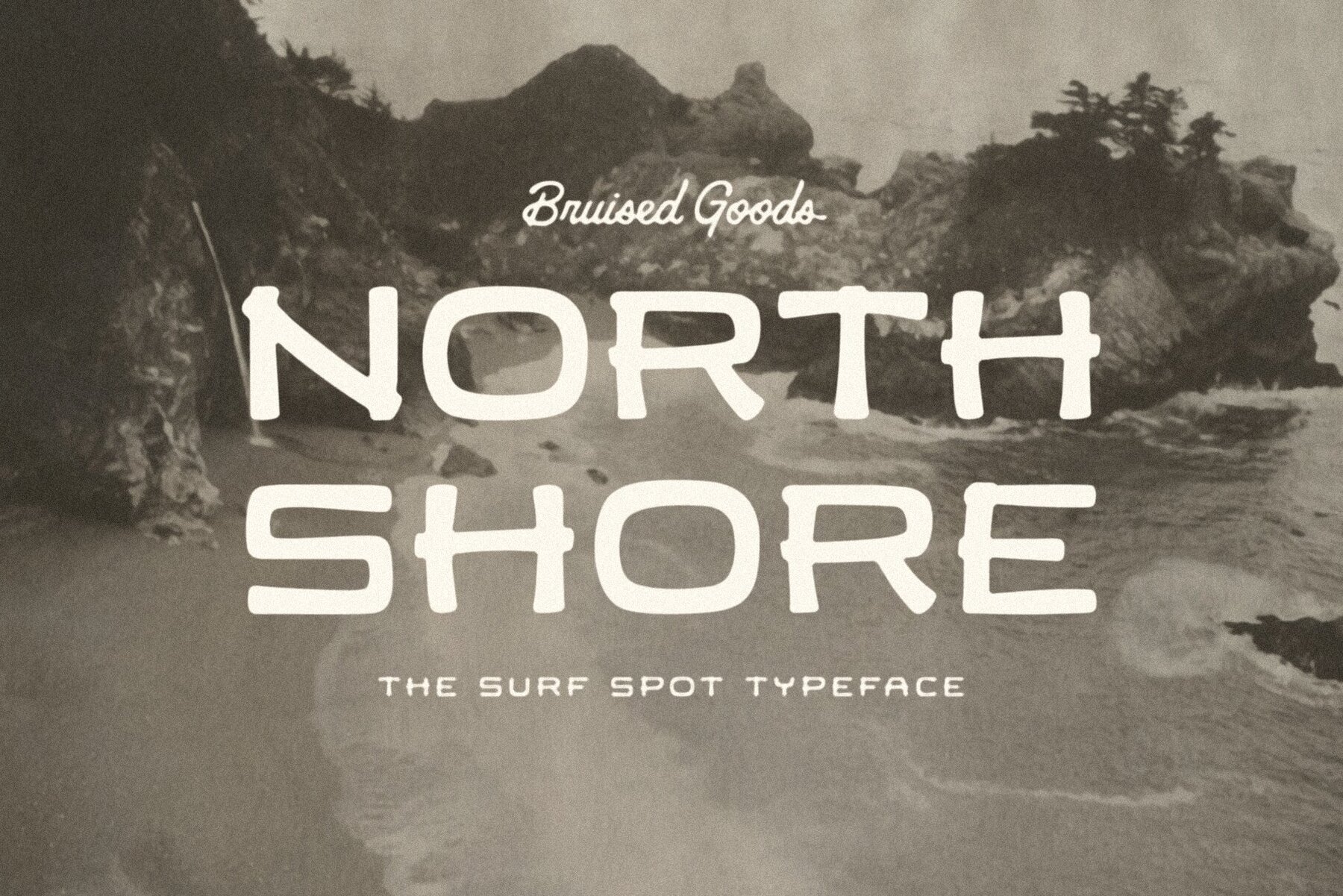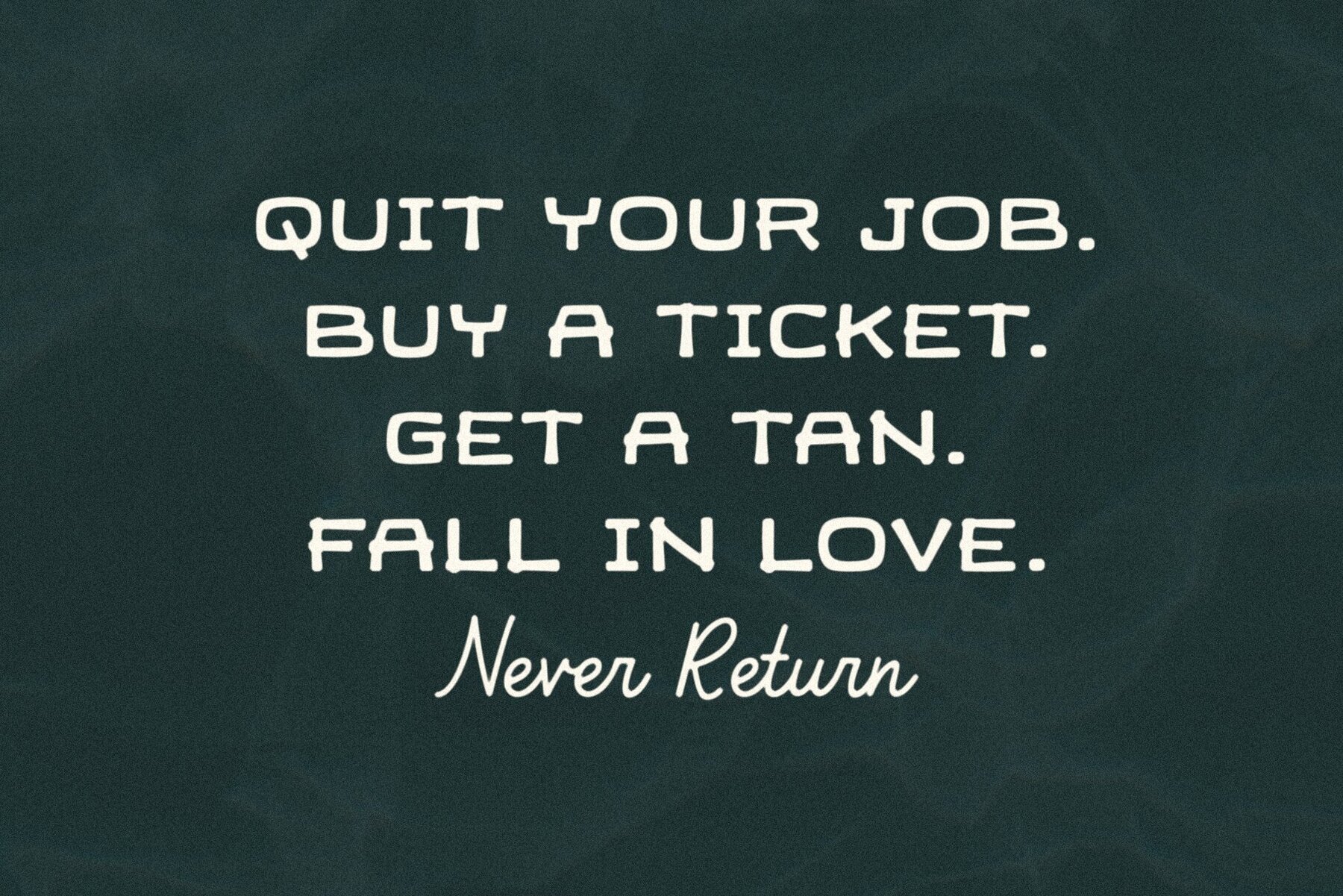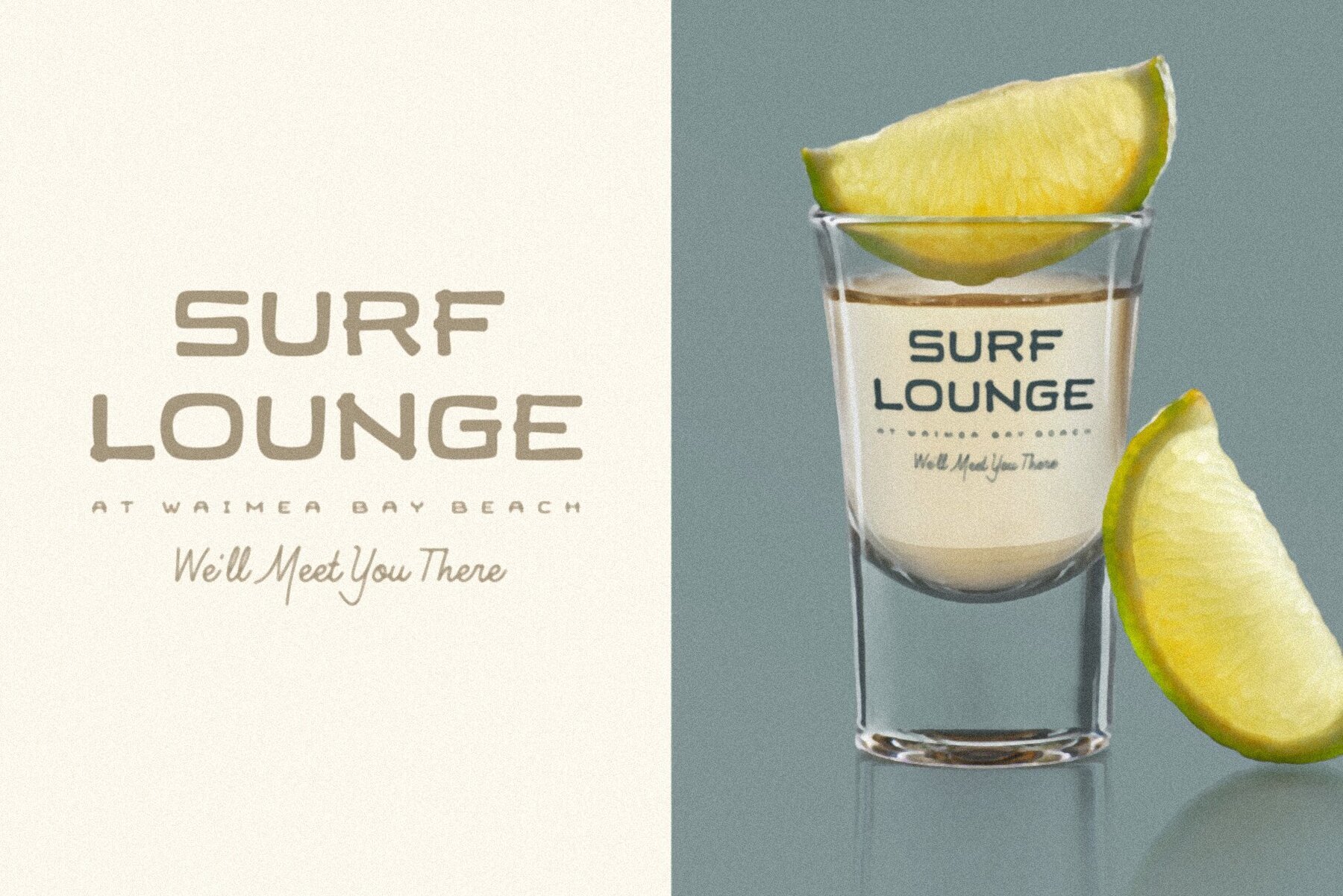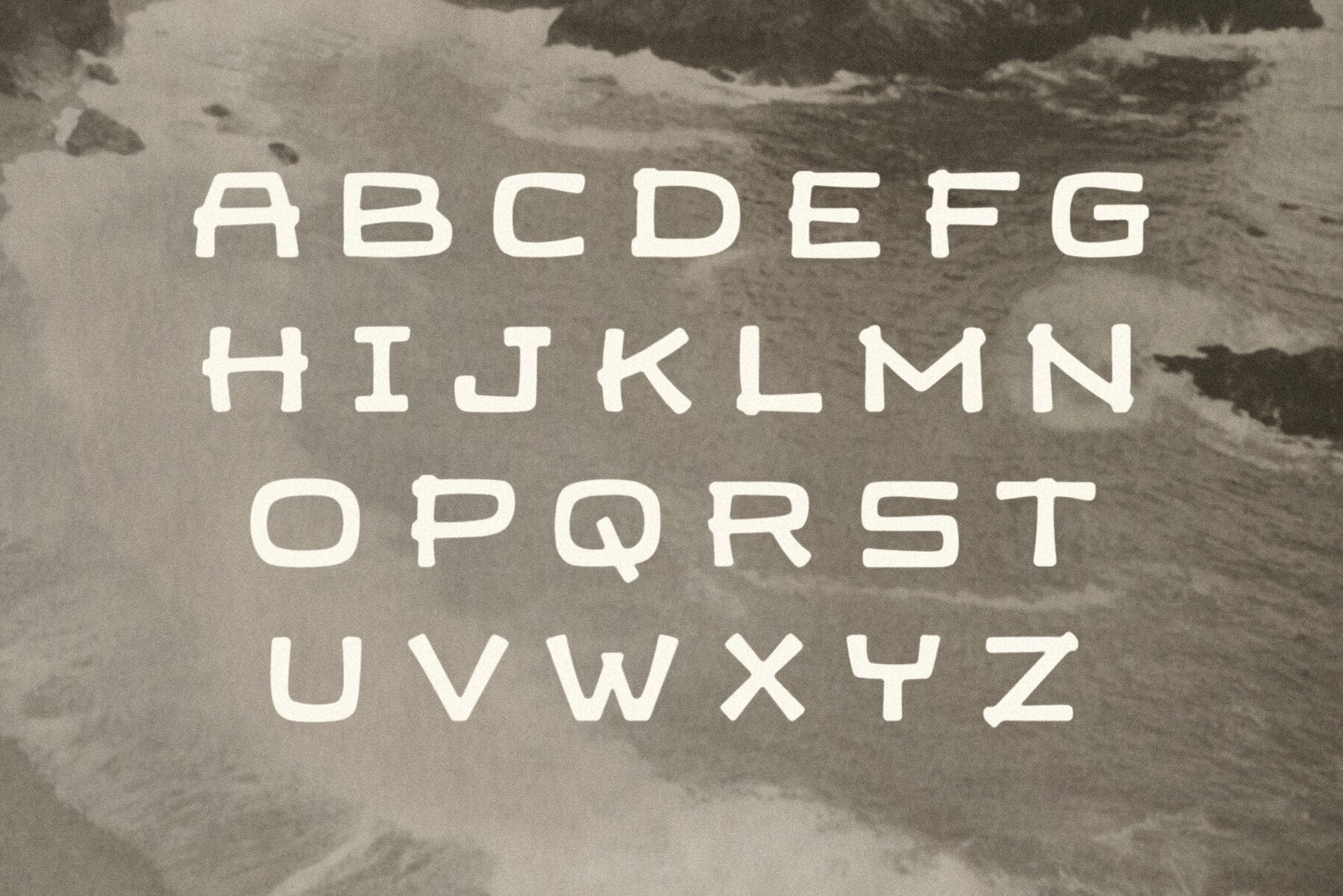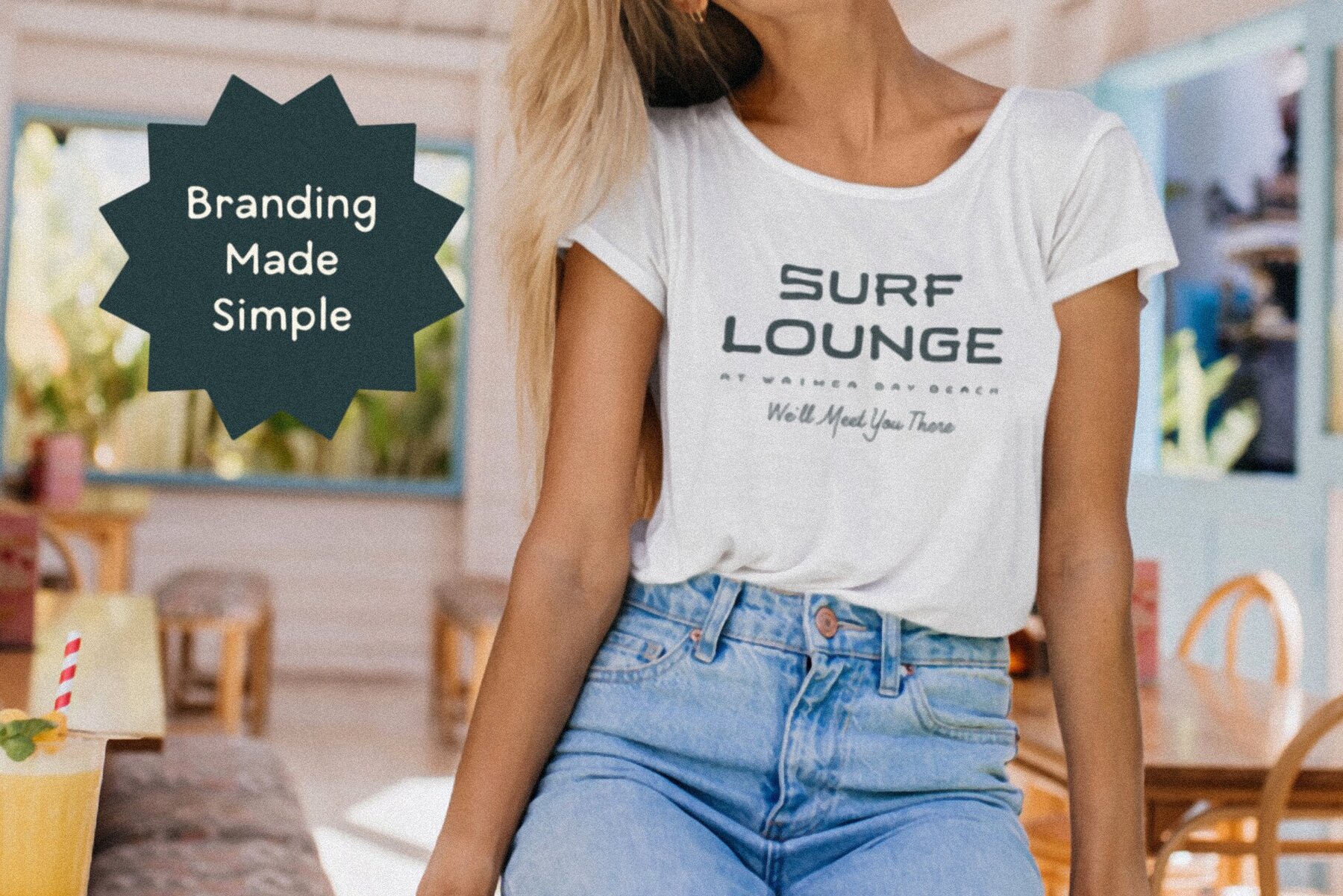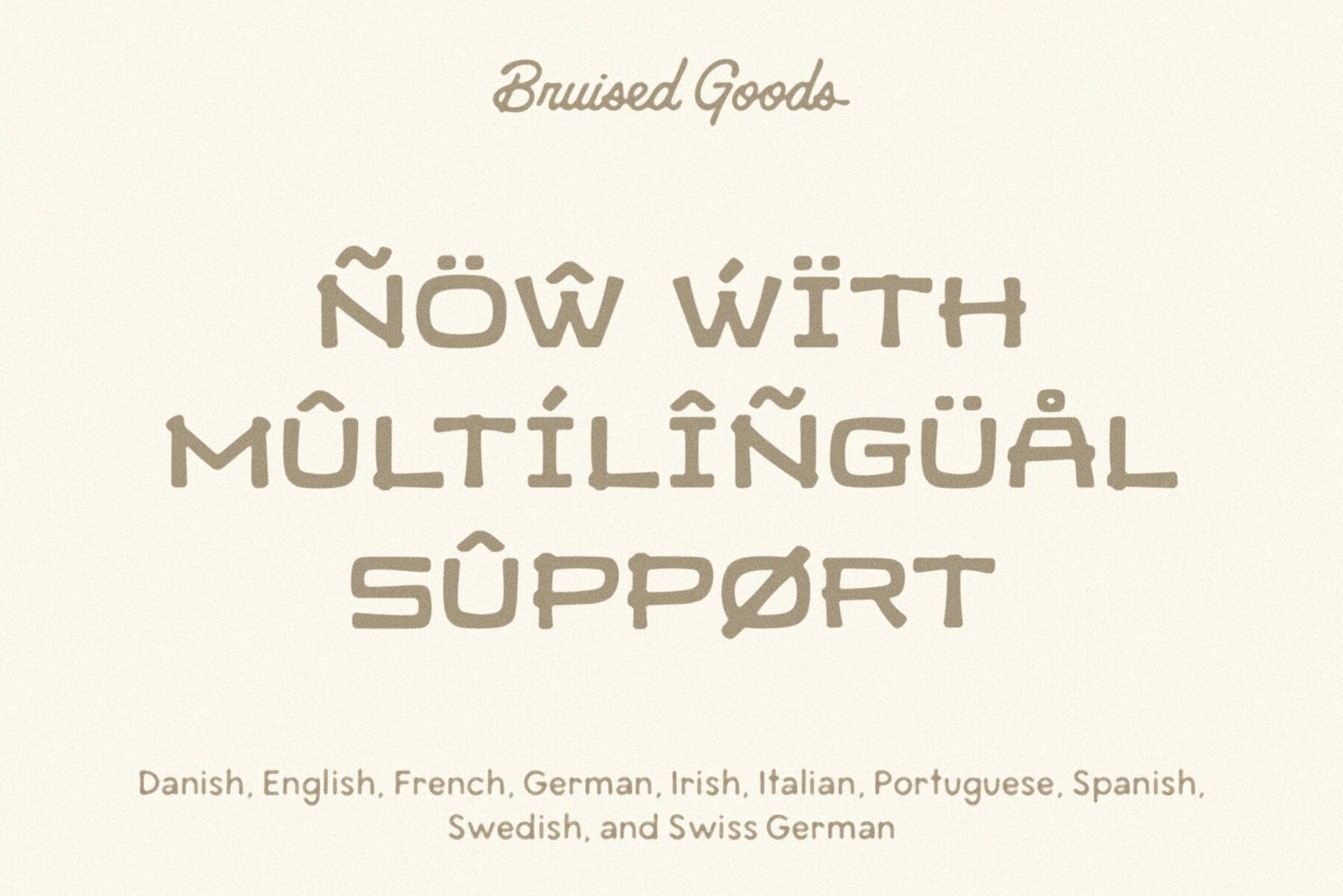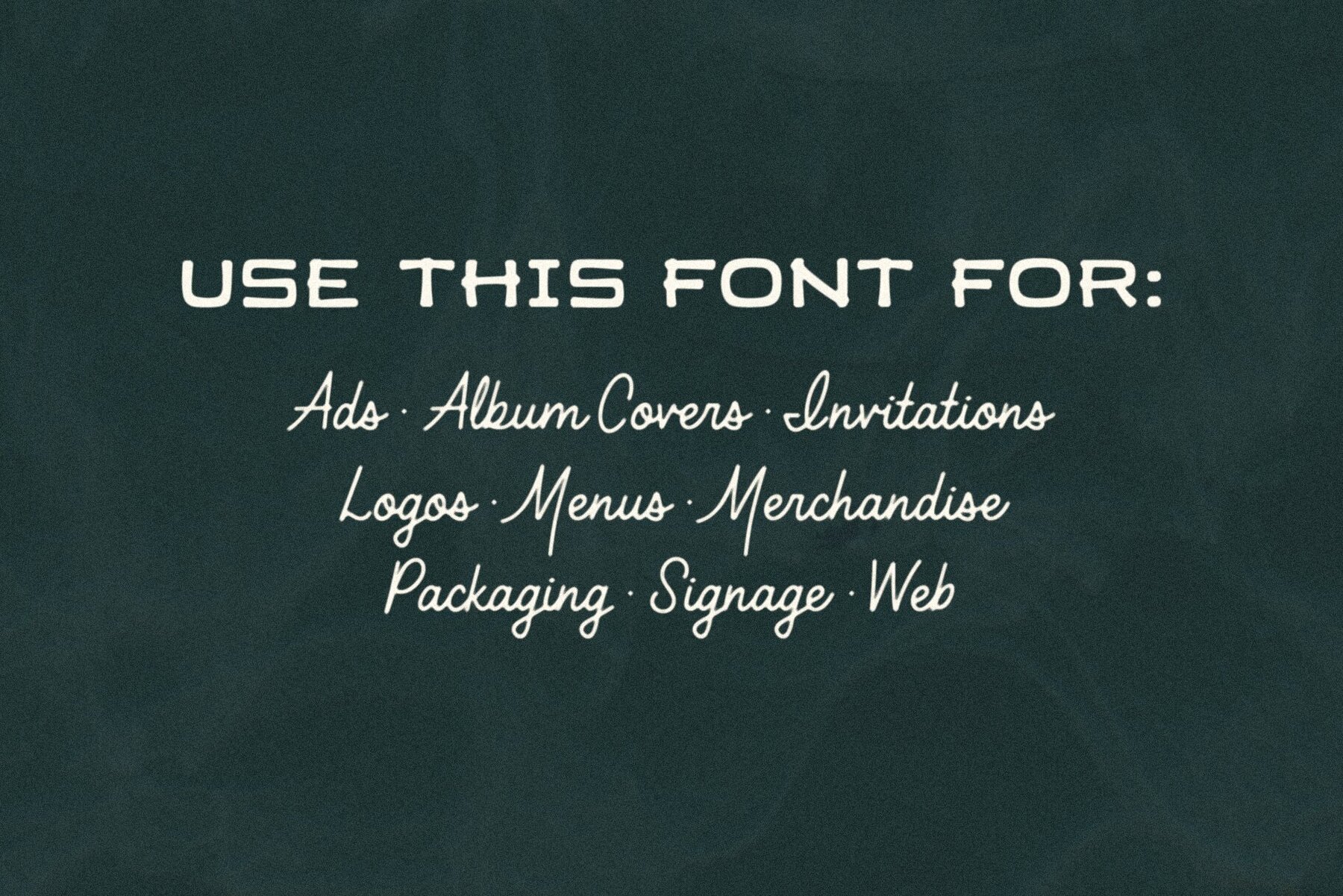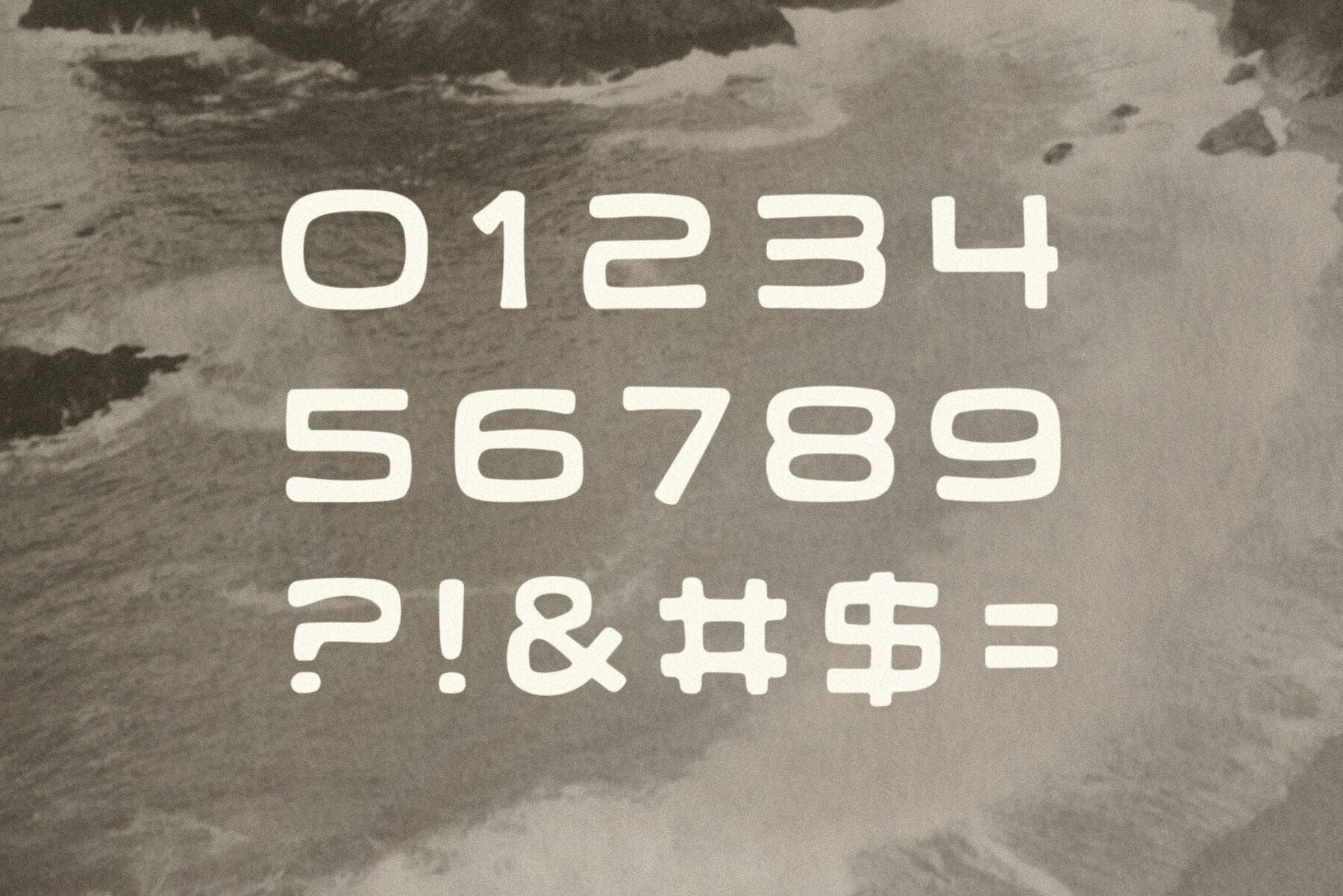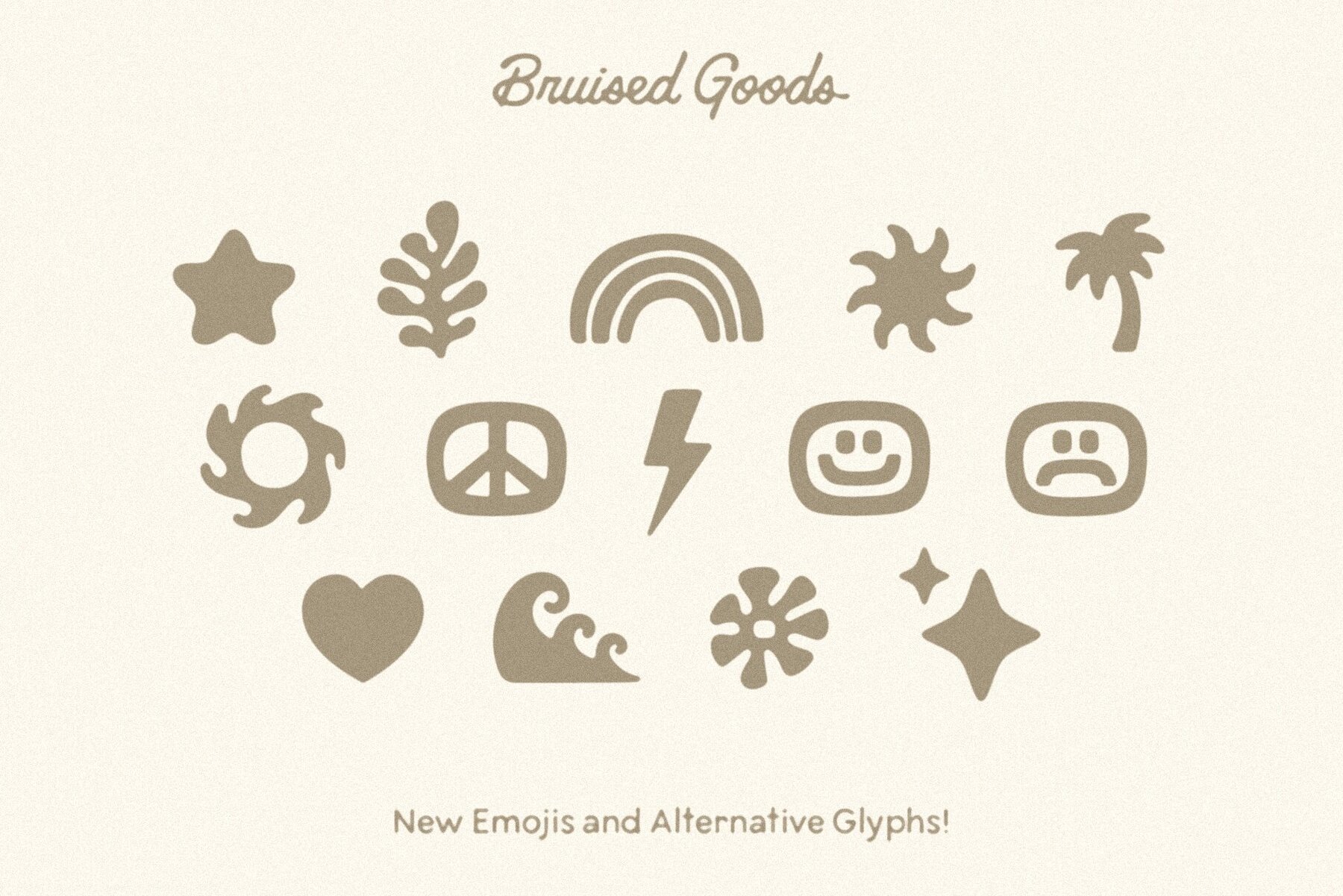
NORTH SHORE – The ultimate Hawaiian surf spot typeface, both groovy and mid-century inspired. Designed by Lauren Kilbane (on the other coast!) in sunny South Florida, USA.
• 204 Glyphs Total: Uppercase ONLY, Numbers, Symbols, Punctuation, & Language Support.
• Language Support: Danish, English, French, German, Irish, Italian, Portuguese, Spanish, Swedish, & Swiss German.